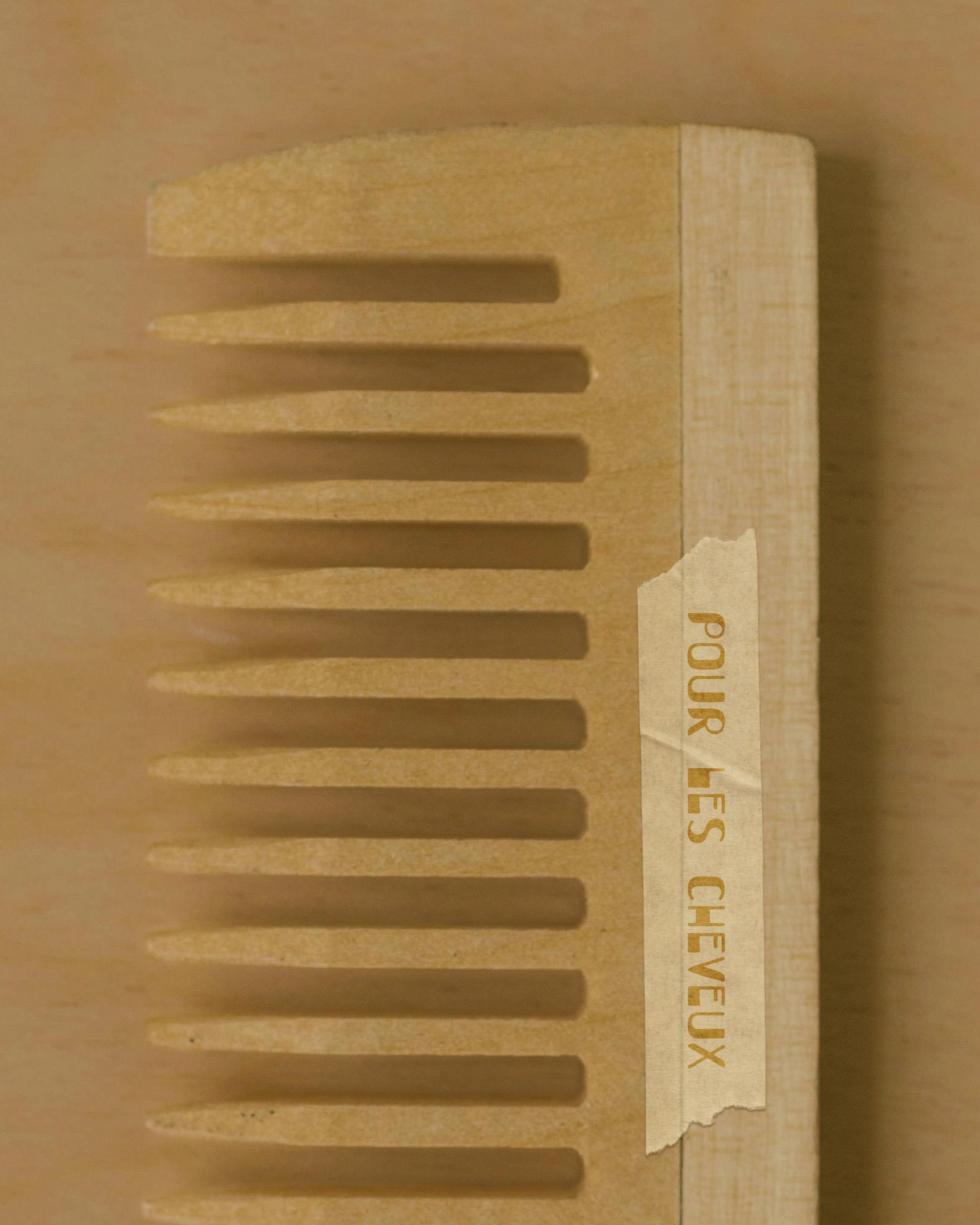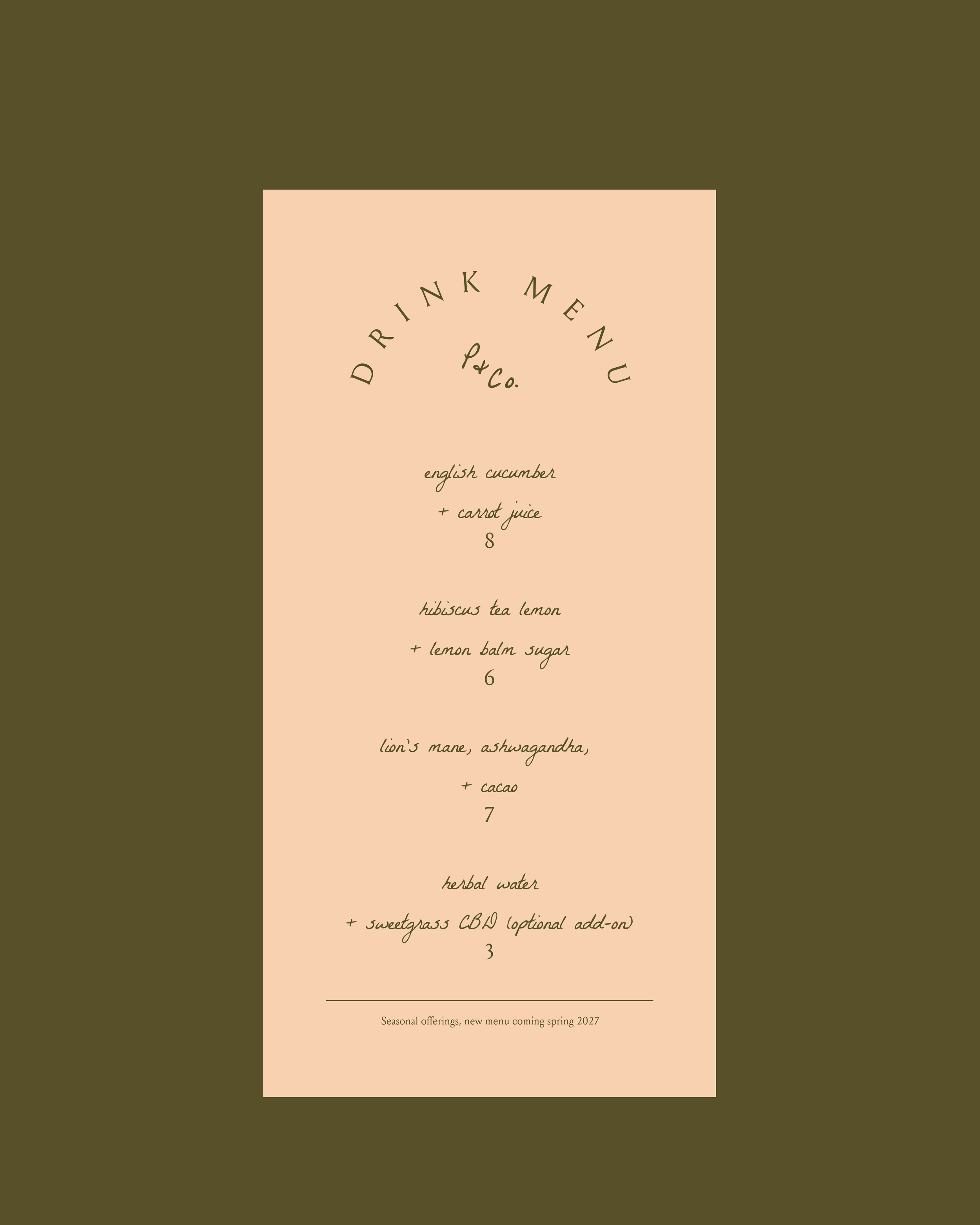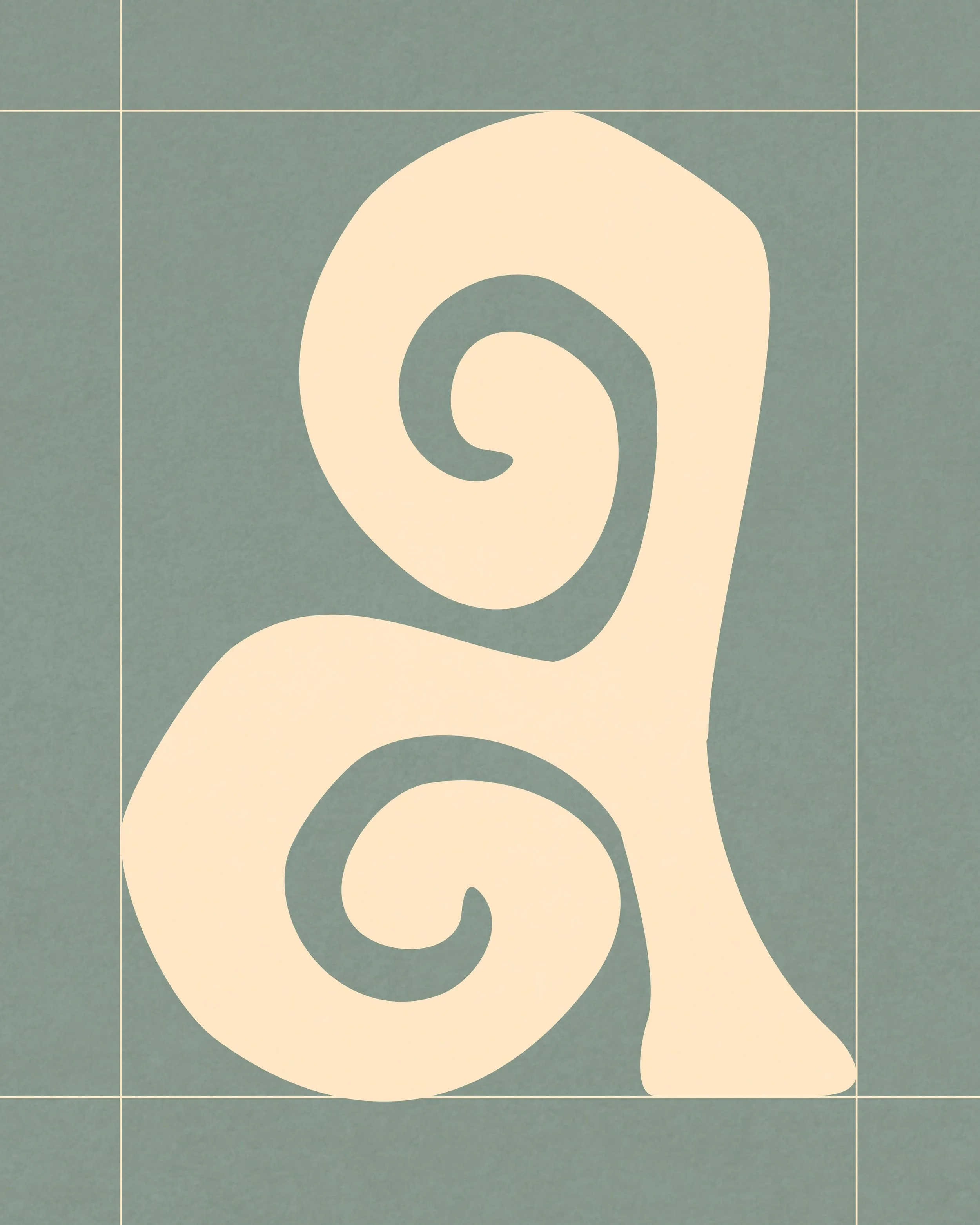
A study on hand drawn fonts vs digital fonts in design
The Quick Answer: Imperfection Makes Brands More Memorable
At their core, hand drawn fonts and digital fonts serve different purposes.
Digital fonts are designed for consistency, precision, and scalability, making them ideal for interfaces, corporate communications, and long-form readability. Hand drawn fonts, on the other hand, preserve the natural imperfections of human lettering, giving brands warmth, personality, and authenticity.
Neither is inherently better. The right choice depends on what you want people to feel when they encounter your brand.
If your goal is to appear polished and systematic, a clean digital typeface may be the best solution. If your goal is to create an emotional connection and stand out in an increasingly AI-generated world, hand drawn typography offers something digital perfection simply can't replicate.
What Is a Hand Drawn Font?
A hand drawn font begins life the old-fashioned way: with pencil, pen, brush, or ink on paper.
Rather than being constructed entirely from geometric curves inside design software, each letter is created by hand before being digitized into a usable font. The beauty lies in what remains after digitization: subtle inconsistencies, textured strokes, imperfect spacing, and the unmistakable evidence of a human hand.
These characteristics aren't flaws to be corrected. They're what make the typeface feel alive.
A good hand drawn font captures personality in a way that perfectly engineered typography rarely can.
Meet Frankie, a hand-drawn decorative serif inspired by the ordinary moments that become our favorite memories.
Warm afternoons. Faded denim. Picking flowers in the neighbors yard. The apartment that somehow always felt like home even when you barely noticed it between 3 different shifts at your first day jobs.
Frankie never cleaned her apartment. There were always flowers in empty bottles on the windowsill. Leftover birthday cake on the counter. Records on the floor with the empty wine bottles. Somebody else's sweatshirt hanging over the back of a chair. She's the girl who could never remember your name the next morning. But you always remembered hers.
Just like all our atmospheric fonts, this one brings you back to a place and time of unforgettable young adulthood. Filled with late nights, slow afternoon wake up calls, and fast fleeting moments you sink back into years later as they linger on and pull you back into a trance like a fever dream.
She features playful curls like the unfurling of a girl becoming a woman and organic softened edges like beautiful imperfections that surface with the slow touch of time.
Frankie's aesthetic feels equally at home on a bottle of natural wine, a surf magazine, a favorite café cup, denim labels, clean skincare packaging, nonfiction book covers, hand made ceramics, indie clothing brands, or anything looking for typography that carries as much atmosphere as it does personality.
Frankie isn't here to recreate the past; it's about capturing the feeling of reliving it.
Full Character Set: A complete alphabet of characters with a uni-case style.
Experience design that transcends time with Antica, a delicate hand-drawn display font perfect for creating truly memorable logos and distinctive marks. Crafted from the heart and deeply inspired by the nostalgic beauty of my Italian roots, Antica's organic imperfections and soft touches are a direct homage to old Italian pottery and the artistry of slow-made goods.
Let this font transport your audience to a loving, wholesome, and homey space, rich with unforgettable memories. Antica is more than just a typeface; it's an invitation to indulge in a timeless aesthetic, making your brand feel authentic, cherished, and deeply connected to a beautiful past.
Your instant download includes a full suite of hand-drawn alphabet letters and symbols, as well as a passport to the delicate beauty of the past in the present.
Use Antica everywhere: branding, print design, websites, merch, and so much more.
What Is a Digital Font?
Digital fonts are typically designed entirely within software using mathematical precision.
Every curve, angle, and spacing relationship is carefully engineered for consistency across different devices and applications. They're incredibly versatile, readable, and reliable. Without digital fonts, websites, books, operating systems, and apps simply wouldn't function as well as they do.
Hand drawn fonts won't be the right choice for every business. But for brands built on creativity, authenticity, and connection, they offer something that perfectly engineered typefaces often can't: a sense of personality that feels real.